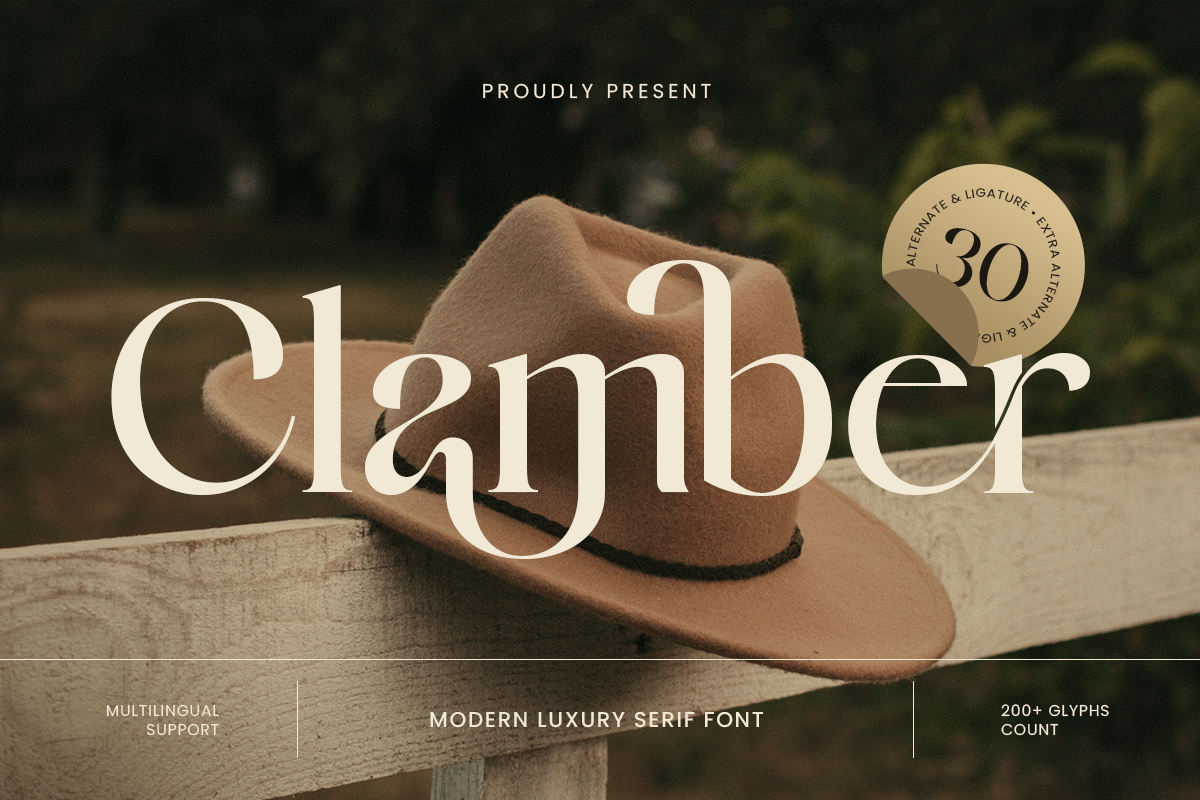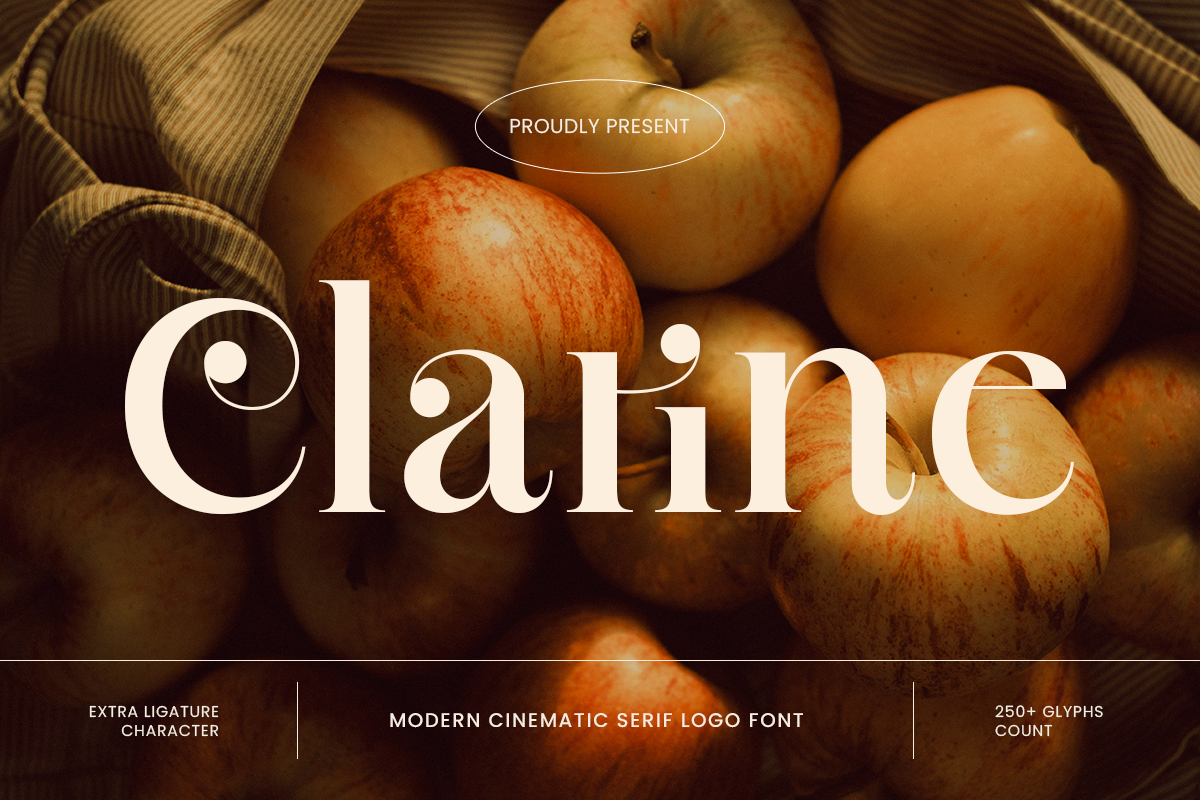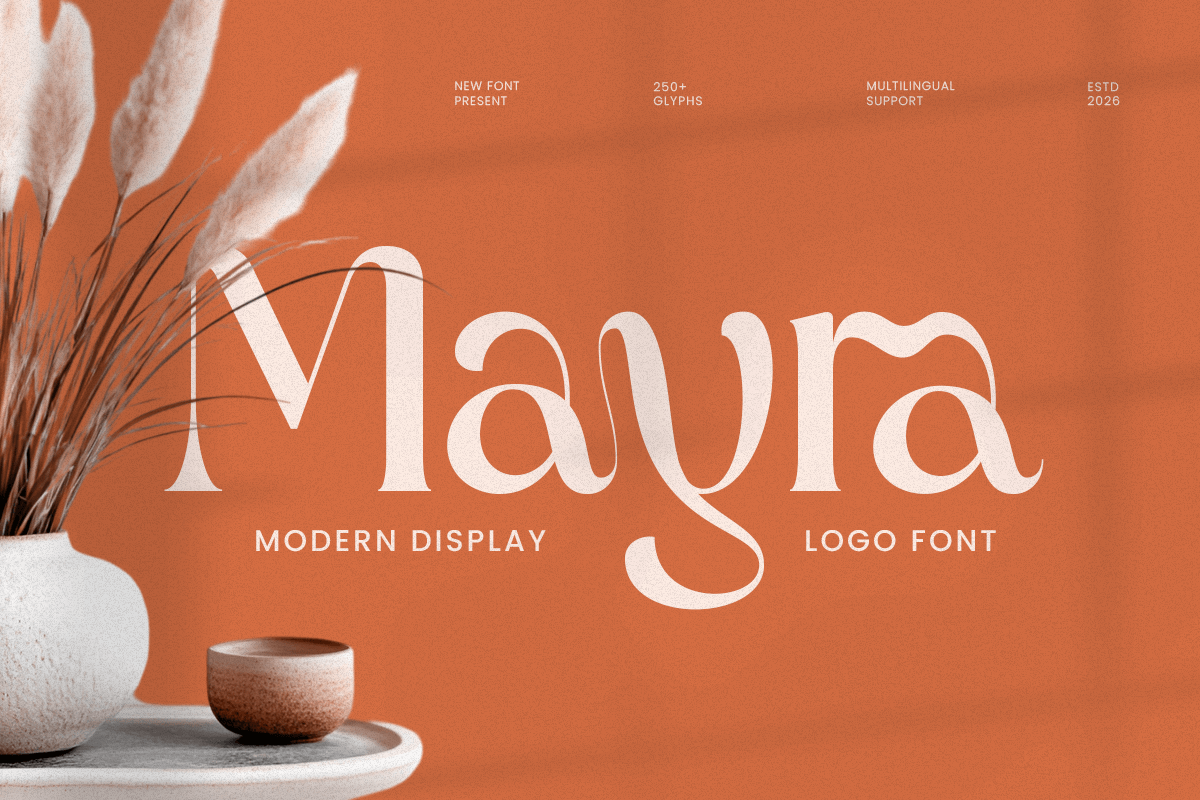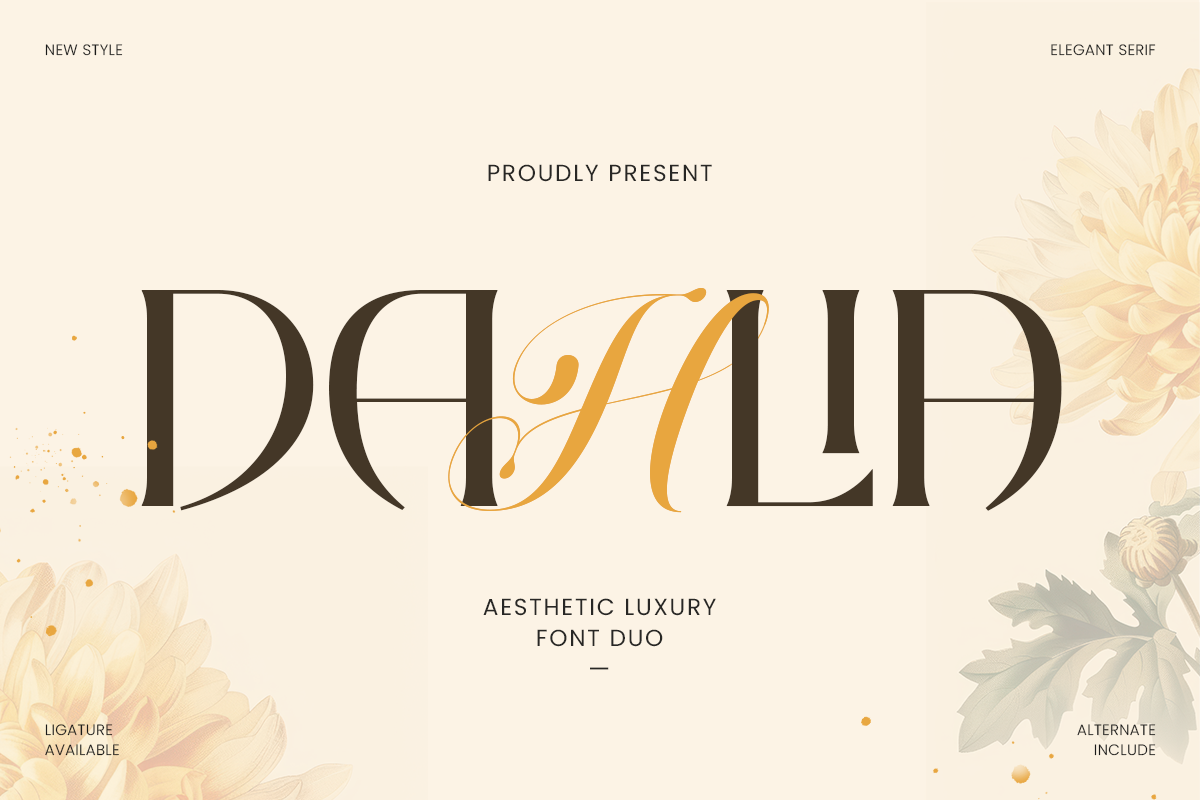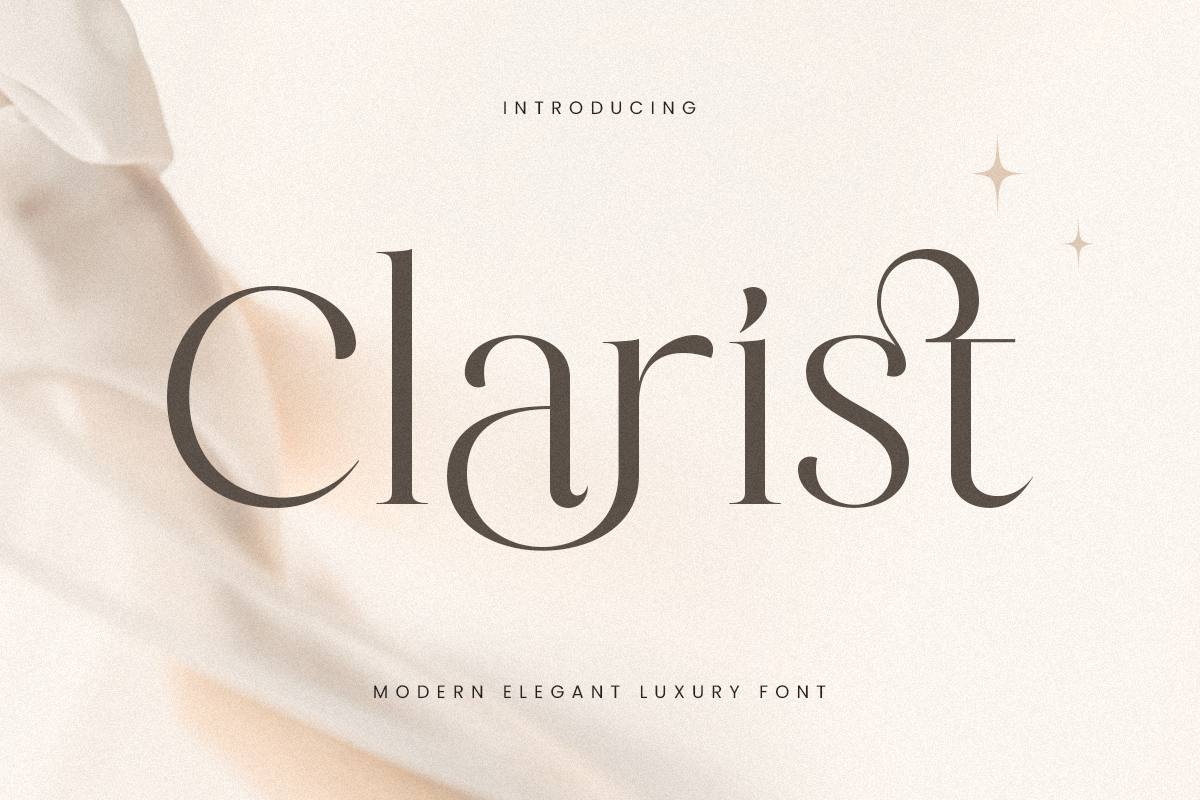
Best Feminine Fonts for Beauty Branding in 2026
Discover the best feminine fonts for beauty branding, skincare packaging, makeup labels, perfume logos, and salon visuals in 2026.
Best Feminine Fonts for Beauty Branding in 2026
The best feminine fonts for beauty branding help beauty brands look elegant, polished, and instantly recognizable. For skincare, makeup, perfume, salon, and self-care businesses, the right font can shape first impressions across logos, packaging, product labels, website headers, and social media visuals. A strong beauty font does more than decorate a design. It builds brand mood, supports trust, and helps customers remember the product.
In beauty branding, typography often signals quality before the product is even tested. Serif fonts can create a luxury and timeless look. Script fonts can add softness, romance, and signature-style charm. Display fonts can make beauty campaigns feel modern, bold, and more distinctive. The best choice depends on whether your brand wants to feel premium, delicate, playful, editorial, or fashion-forward.
If you are looking for the best feminine fonts for beauty branding, cosmetic packaging, skincare labels, and perfume logos, these Sensatype Studio font alternatives offer strong options for a refined and memorable visual identity.
Why Typography Matters in Beauty Branding
Beauty branding is highly visual. Customers often judge a product by how it looks before they know how it performs. Typography helps shape that impression. The right font can make a brand feel luxurious, soft, romantic, modern, or trustworthy.
For beauty businesses, typography often appears across:
• logo design
• skincare packaging
• makeup labels
• perfume boxes
• salon branding
• product campaigns
• website headers
• social media content
Because beauty is closely tied to emotion and presentation, the font needs to do more than look attractive. It also needs to feel aligned with the brand story.
What Makes a Font Feel Feminine?
A feminine font does not always mean overly decorative or overly soft. In beauty branding, feminine typography usually combines elegance with clarity. It should feel graceful without losing readability.
Common traits of feminine beauty fonts include:
• refined curves
• balanced proportions
• delicate contrast
• stylish details
• soft rhythm
• polished structure
Some feminine fonts feel luxurious and editorial. Others feel sweet, romantic, or modern. That is why the best feminine fonts for beauty branding are the ones that match the tone of the brand, not just the trend.
Best Feminine Fonts for Beauty Branding
Clamber - Modern Luxury Serif Font
Clamber is a modern luxury serif font designed to bring refined sophistication with a clean contemporary edge. Its polished serif details and balanced structure make it a strong choice for beauty brands that want to feel elegant, timeless, and premium.
For skincare and cosmetic brands, Clamber works well because it creates a polished visual identity without feeling too ornamental. It is ideal for packaging, editorials, logos, and beauty websites that want a luxury look with strong readability.
Mayra - Modern Display Logo Font
Mayra is a modern display logo font with bold impact and clean clarity. Its confident shapes help brands stand out quickly, making it useful for beauty campaigns that need a stronger and more recognizable visual voice.
If your beauty brand leans modern, fashion-forward, or trend-driven, Mayra can help create a striking impression. It works especially well for promotional graphics, cosmetic launches, and attention-grabbing beauty branding.
Clarist - Modern Elegant Luxury Font
Clarist brings elegance and cinematic luxury into a brand system. Its refined characters make it suitable for premium beauty brands that want to appear sophisticated, elevated, and stylish.
This font fits brands in skincare, boutique cosmetics, and luxury beauty where the identity needs to feel visually rich. Clarist is especially strong for logos, packaging fronts, and editorial-inspired visuals.
Dahlia - Aesthetic Luxury Font Duo
Dahlia is an aesthetic luxury font duo that combines a graceful script with an elegant serif. This pairing creates a complete beauty branding toolkit. The script adds soft signature-like charm, while the serif supports clarity and timeless sophistication.
For beauty brands, Dahlia is a strong option when you want a more layered identity. It works beautifully for perfume packaging, boutique skincare labels, wedding-adjacent beauty brands, and feminine social media visuals.
Clarine - Modern Cinematic Serof Logo Font
The best feminine fonts for beauty branding do more than make a design look pretty. They help shape how a beauty brand feels. From luxurious and elegant to soft and modern, the right font influences recognition, trust, and emotional connection.
If you are building a skincare label, cosmetic product, perfume line, salon identity, or beauty campaign, typography should be part of the strategy from the beginning. Fonts like Clamber, Mayra, Clarist, Dahlia, and Clarine offer strong options for creating a polished and memorable beauty brand identity.